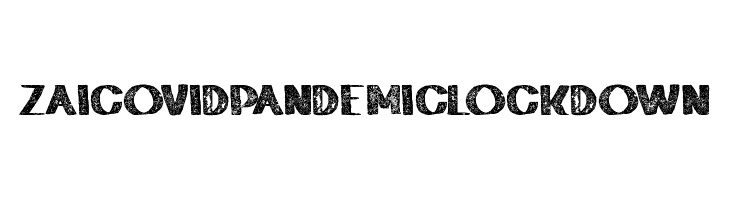
A bold, distressed font with a rugged, grunge-like texture.
Expressive script font with ornate swashes and artistic flair.
A bold, geometric font with intricate patterns and a modern, digital aesthetic.
A playful and energetic handwritten font with fluid strokes.
A lively, cursive font with elegant loops and a handwritten style.
A lively handwritten font with expressive and dynamic strokes.
A bold, futuristic font with rounded edges and a geometric design.
A graceful and elegant handwritten script with flowing, interconnected letterforms.
A delicate and flowing script font with elegant, intricate curves.
A bold, playful script font with rounded, slanted characters.